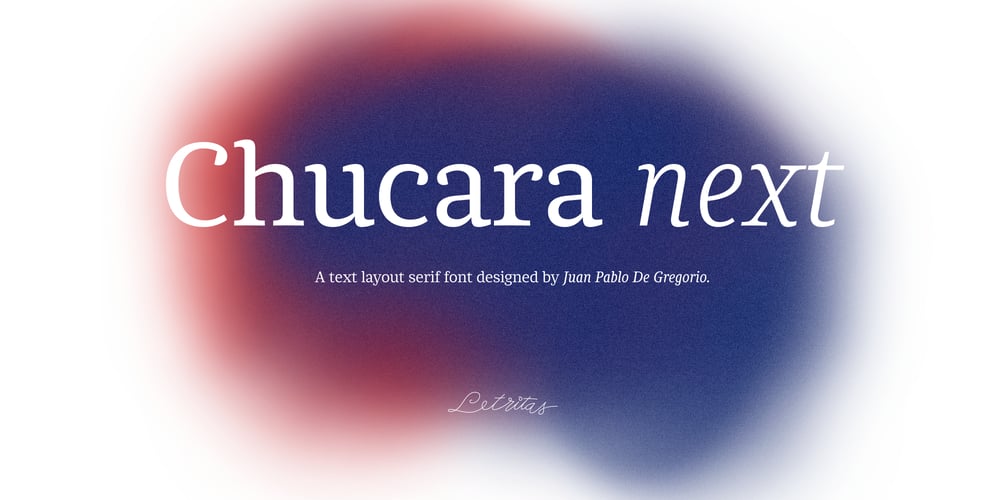
Chucara Next Font Family was designed by Juan Pablo De Gregorio and published by Letritas. Chucara Next contains 32 styles and family package options. Chucara next is the newest font designed by Juan Pablo De Gregorio, a typeface aimed at high readability when set in paragraphs or large chunks of text. Its predecessor “Chúcara”, born in 2003, sought after increasing readability by achieving big and simple counterforms. This time around Juan Pablo went further by increasing the X-height and trimming both ascenders and descenders, thus the font appears to be much larger than it is and can be readable at smaller sizes. The DNA of the whole font is marked by the terminal of the “a” character. Juan Pablo used a specially crafted cut to design this counterform, and this shape together with the graceful and winding forms of the letter resembles the form of a horse, hence the name Chúcara, or untamed. The italic version has a 10-degree angle and a 10% condensation, making it way more streamlined than a regular italic font. The Philosophy of a larger counterform is maintained through and through in the italic variant. This version looks different not only due to its inclination, but the sheer effort put into carefully taking care of the condensation and the gestures allow the italic to enrich the texts gracefully, for the highlighting of the words stands out without affecting the grey of the paragraph.Chucara next is a typeface optimal for being used in books, newspapers, magazines, texts, printing, headlines, editorial, quotes, corporate identity, and lo res printing. The typeface has 8 weights, ranging from “thin” to “black”, and two versions: “regular” and “italic”. Its 16 files contain 635 characters with small caps, stylistic sets and different kind of numbers. It supports 219 Latin-based languages, spanning through 212 different countries.Chucara next supports this languages: Abenaki, Afaan Oromo, Afar, Afrikaans, Albanian, Alsatian, Amis, Anuta, Aragonese, Aranese, Aromanian, Arrernte, Arvanitic (Latin), Asturian, Atayal, Aymara, Bashkir (Latin), Basque, Bemba, Bikol, Bislama, Bosnian, Breton, Cape Verdean Creole, Catalan, Cebuano, Chamorro, Chavacano, Chichewa, Chickasaw, Cimbrian, Cofán, Corsican Creek,Crimean Tatar (Latin),Croatian, Czech, Dawan, Delaware, Dholuo, Drehu, Dutch, English, Estonian, Faroese, Fijian Filipino, Finnish, Folkspraak, French, Frisian, Friulian, Gagauz (Latin), Galician, Ganda, Genoese, German, Gikuyu, Gooniyandi, Greenlandic (Kalaallisut)Guadeloupean, Creole, Gwich’in, Haitian, Creole, Hän, Hawaiian, Hiligaynon, Hopi, Hotc?k (Latin), Hungarian, Icelandic, Ido, IgboI, locano, Indonesian, Interglossa, Interlingua, Irish, Istro-Romanian, Italian, Jamaican, Javanese (Latin), Jèrriais, Kala Lagaw Ya, Kapampangan (Latin), Kaqchikel, Karakalpak (Latin), Karelian (Latin), Kashubian, Kikongo, Kinyarwanda, Kiribati, Kirundi, Klingon, Ladin, Latin, Latino sine Flexione, Latvian, Lithuanian, Lojban, Lombard, Low Saxon, Luxembourgish, Maasai, Makhuwa, Malay, Maltese, Manx, M?ori, Marquesan, Megleno-Romanian, Meriam Mir, Mirandese, Mohawk, Moldovan, Montagnais, Montenegrin, Murrinh-Patha, Nagamese Creole, Ndebele, Neapolitan, Ngiyambaa, Niuean, Noongar, Norwegian, Novial, Occidental, Occitan, Old Icelandic, Old Norse, Oshiwambo, Ossetian (Latin), Palauan, Papiamento, Piedmontese, Polish, Portuguese, Potawatomi, Q’eqchi’, Quechua, Rarotongan, Romanian, Romansh, Rotokas, Sami (Inari Sami), Sami (Lule Sami), Sami (Northern Sami), Sami (Southern Sami), Samoan, Sango, Saramaccan, Sardinian, Scottish Gaelic, Serbian (Latin), Seri, Seychellois Creole, Shawnee, Shona, Sicilian, Silesian, Slovak, Slovenian, Slovio (Latin), Somali, Sorbian (Lower Sorbian), Sorbian (Upper Sorbian), Sotho (Northern), Sotho (Southern), Spanish, Sranan, Sundanese (Latin), Swahili, Swazi, Swedish, Tagalog, Tahitian, Tetum, Tok Pisin, Tokelauan, Tongan, Tshiluba, Tsonga, Tswana, Tumbuka, Turkish, Turkmen (Latin), Tuvaluan, Tzotzil, Uzbek (Latin), Venetian, Vepsian, Volapük, Võro, Wallisian, Walloon, Waray-Waray, Warlpiri, Wayuu, Welsh, Wik-Mungkan, Wiradjuri, Wolof, Xavante, Xhosa, Yapese, Yindjibarndi, Zapotec, Zulu, Zuni.